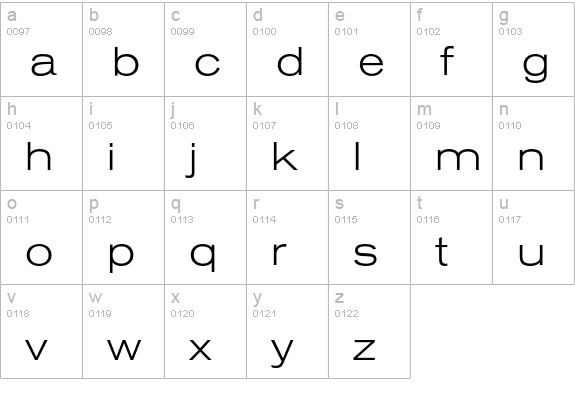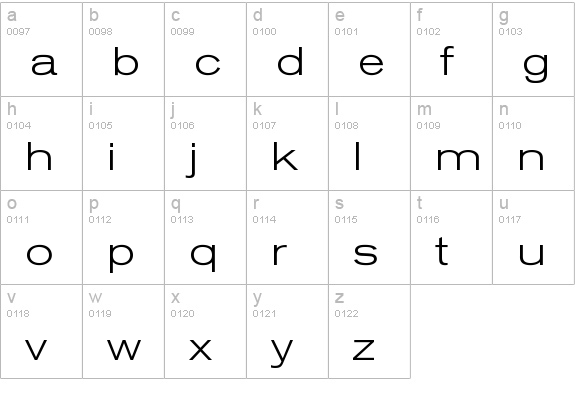
Berthold Akzidenz Grotesk BE Light Extended is a refined, elegant, extended-width variant in the Berthold typeface family \xE2\x80\x94 well suited to elegant body text, refined sub-headings, and luxury branding.
Berthold Akzidenz Grotesk BE Light Extended font exudes elegance and sophistication with its sleek and modern appearance. This versatile typeface is perfect for creating clean and professional designs, making it a popular choice among designers and typographers. The light extended weight adds a touch of grace and refinement to any project, whether it be for branding, editorial design, or web graphics. What sets Berthold Akzidenz Grotesk BE Light Extended font apart is its timeless appeal and legibility, making it a reliable option for various design applications. The extended width provides a unique look that commands attention and creates a sense of balance in layouts. Whether used for headlines, body text, or signage, this font delivers a strong visual impact while maintaining readability. Best of all, Berthold Akzidenz Grotesk BE Light Extended font is available for free download at FontsMarket.com. This means that you can easily access and use this high-quality typeface in your projects without any cost. Don't miss out on the opportunity to enhance your designs with this beautiful and versatile font that is just a few clicks away.